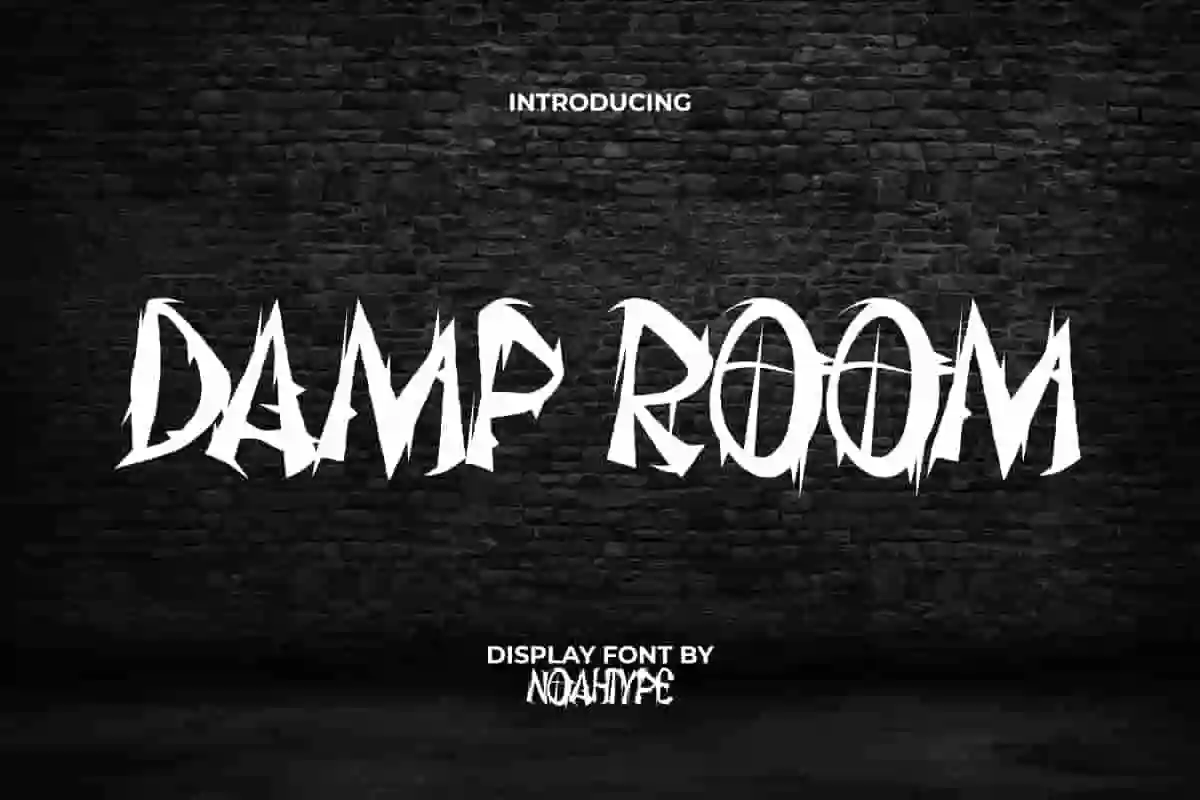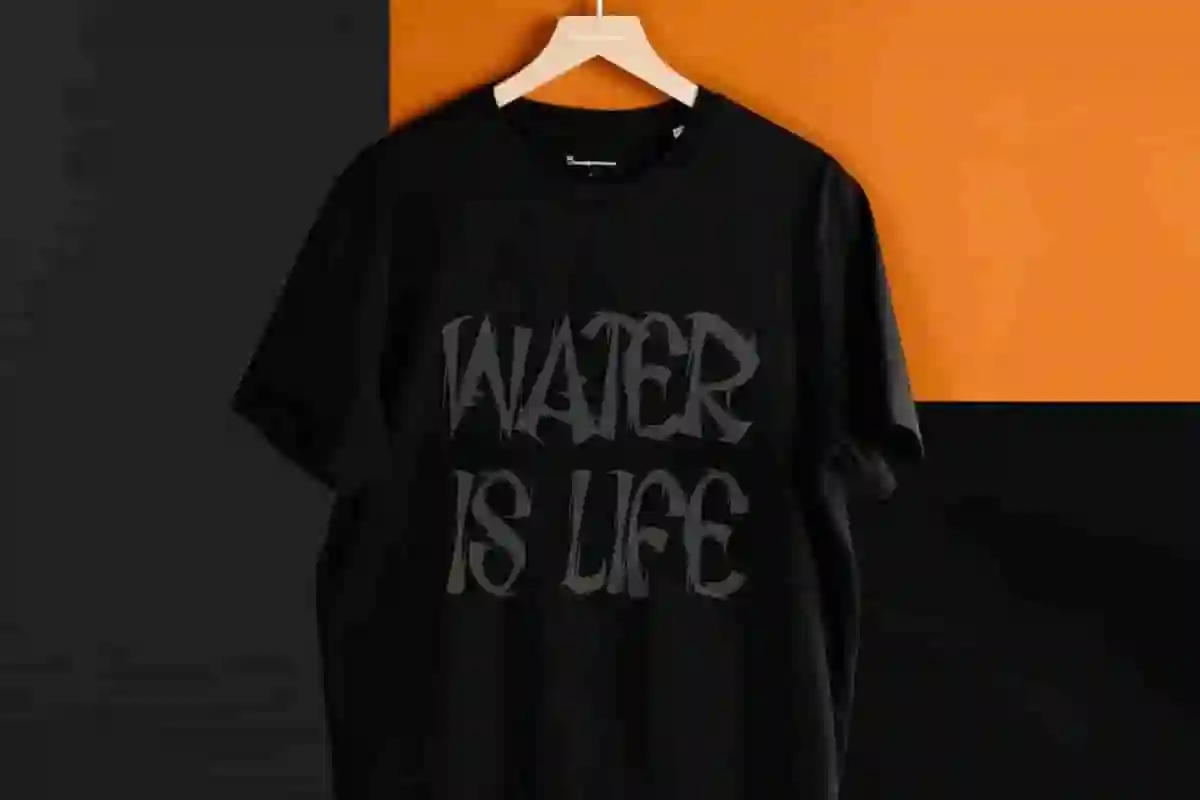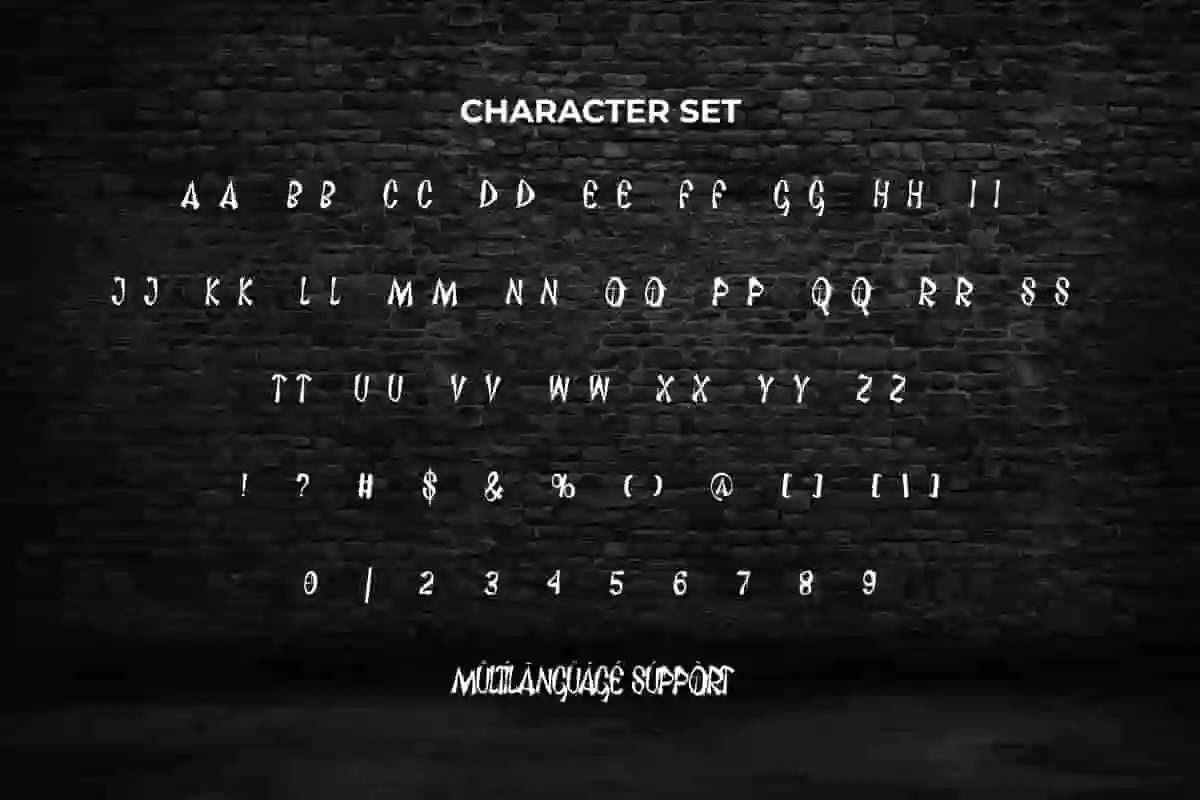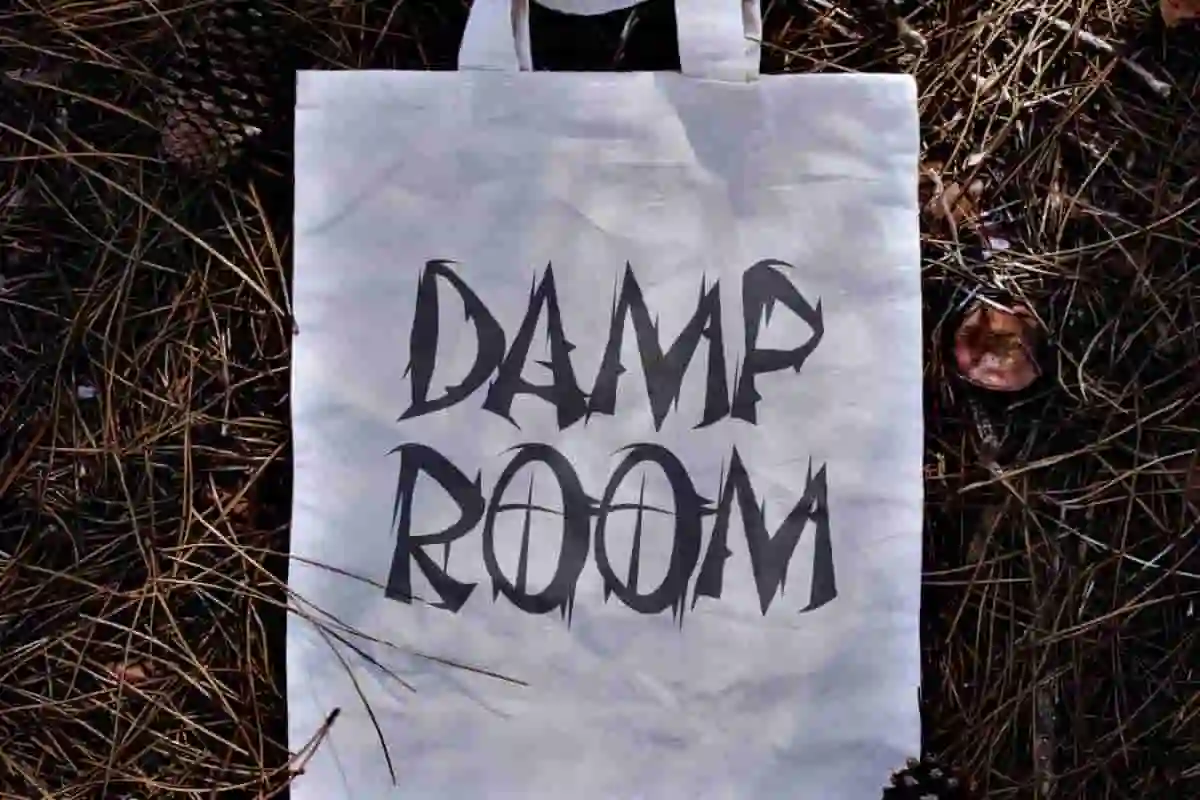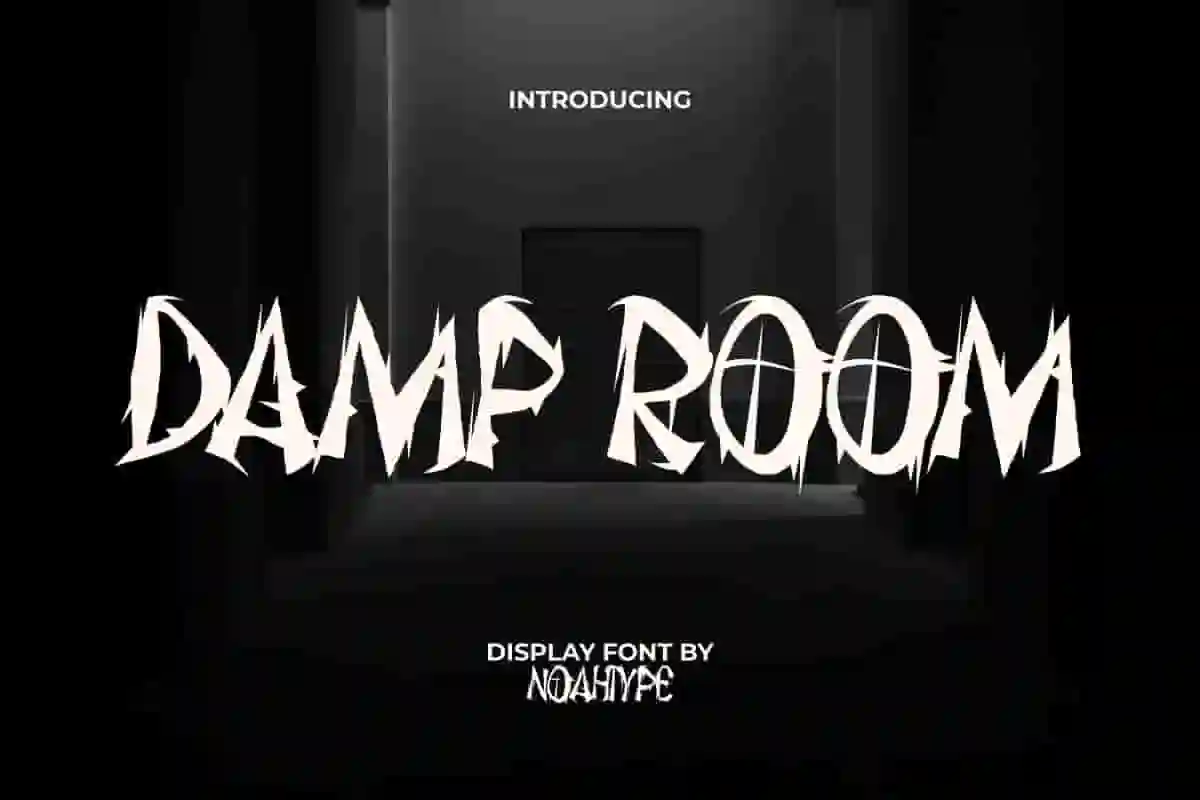
Damp Room Font is a nervy dark black metal display font made with textured special brush writing. This font has quite thick letters with sharp lines, making it look intimidating and creepy. It will be perfect for any designs, such as brand image, cover, custom design, invitation, label, marketing material, menu, poster, product packaging, quotes, signage, web, and many more!
Damp Room Font includes full set of ALL CAPS for Uppercase and Lowercase Basic Characters, Numerals, Punctuation and Symbol. The characters of this font will give amazing touch and also a perfect choice for many industries, such as accessories, advertising, cafe, event or festival, fashion, game, movie, music, printing, publishing, etc.